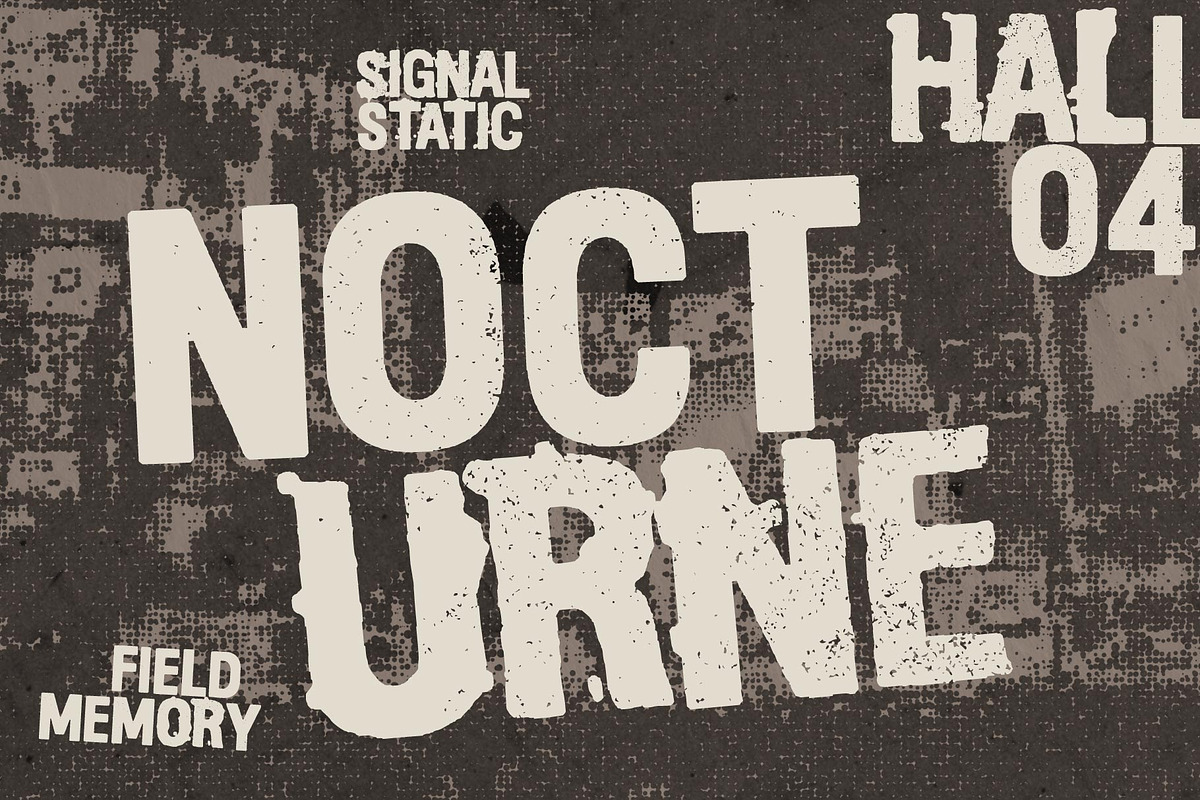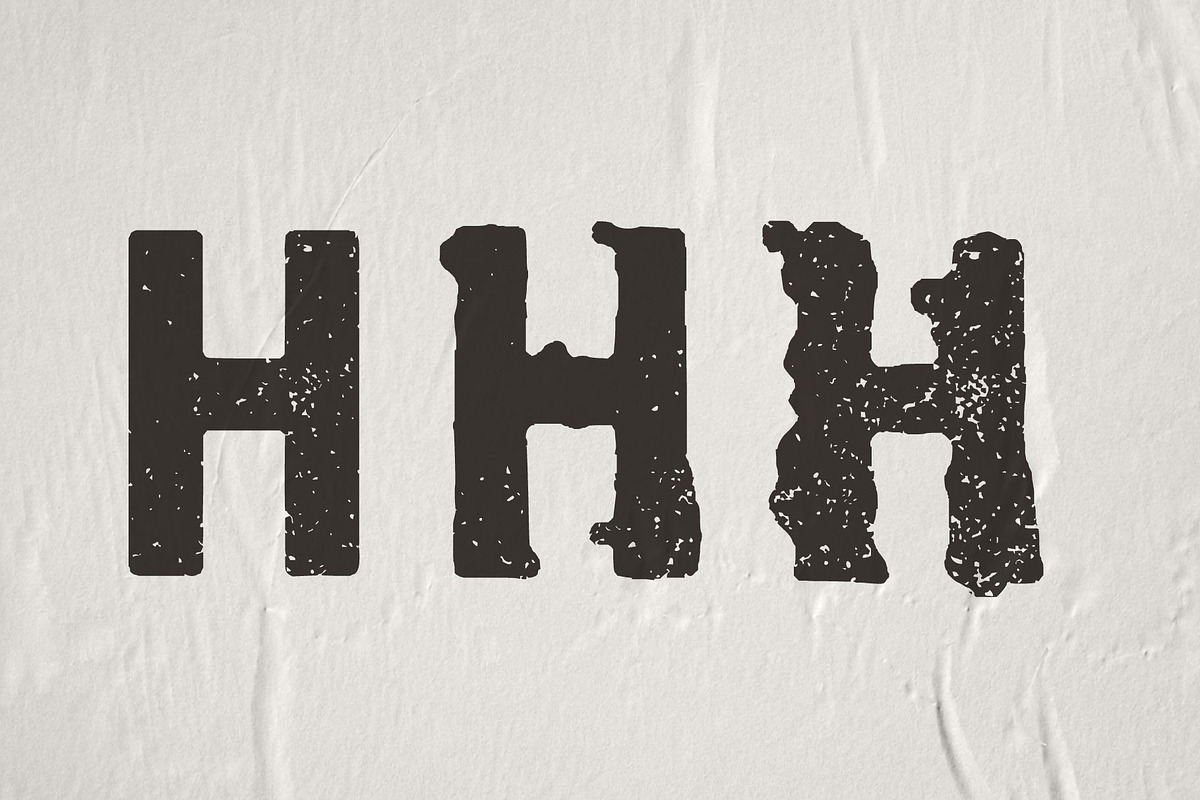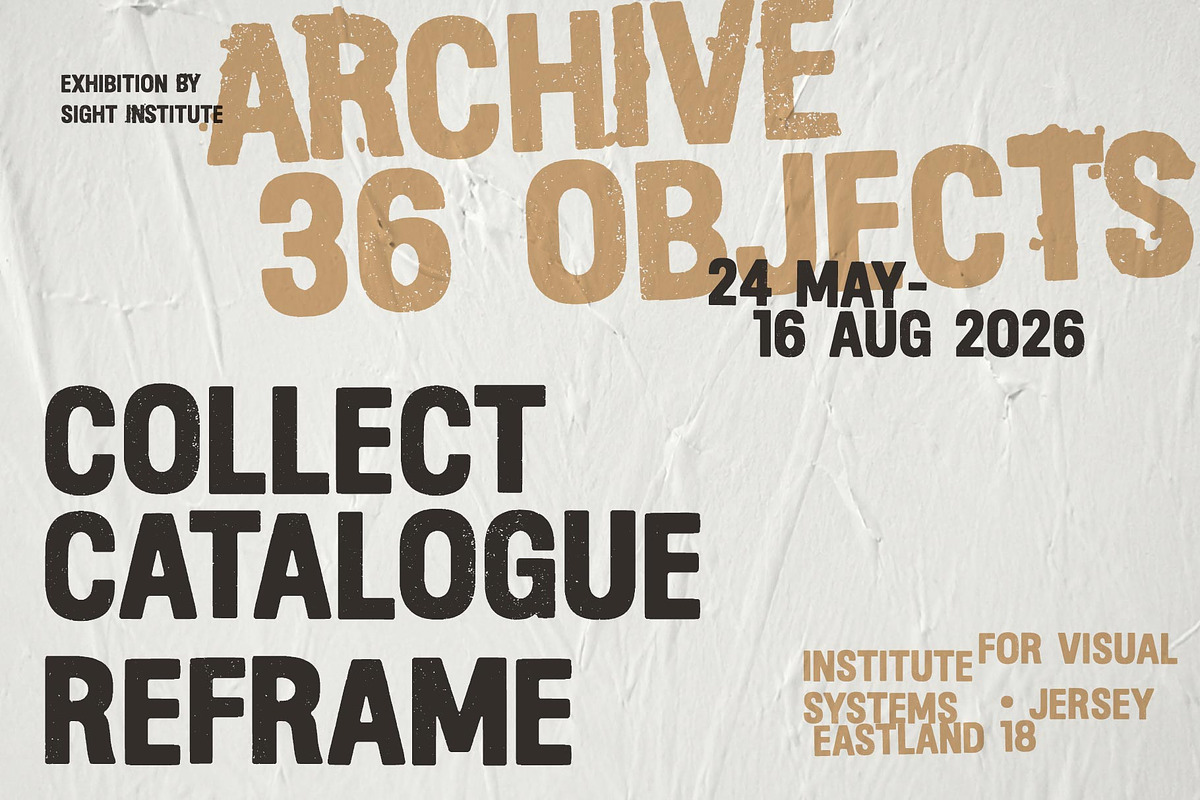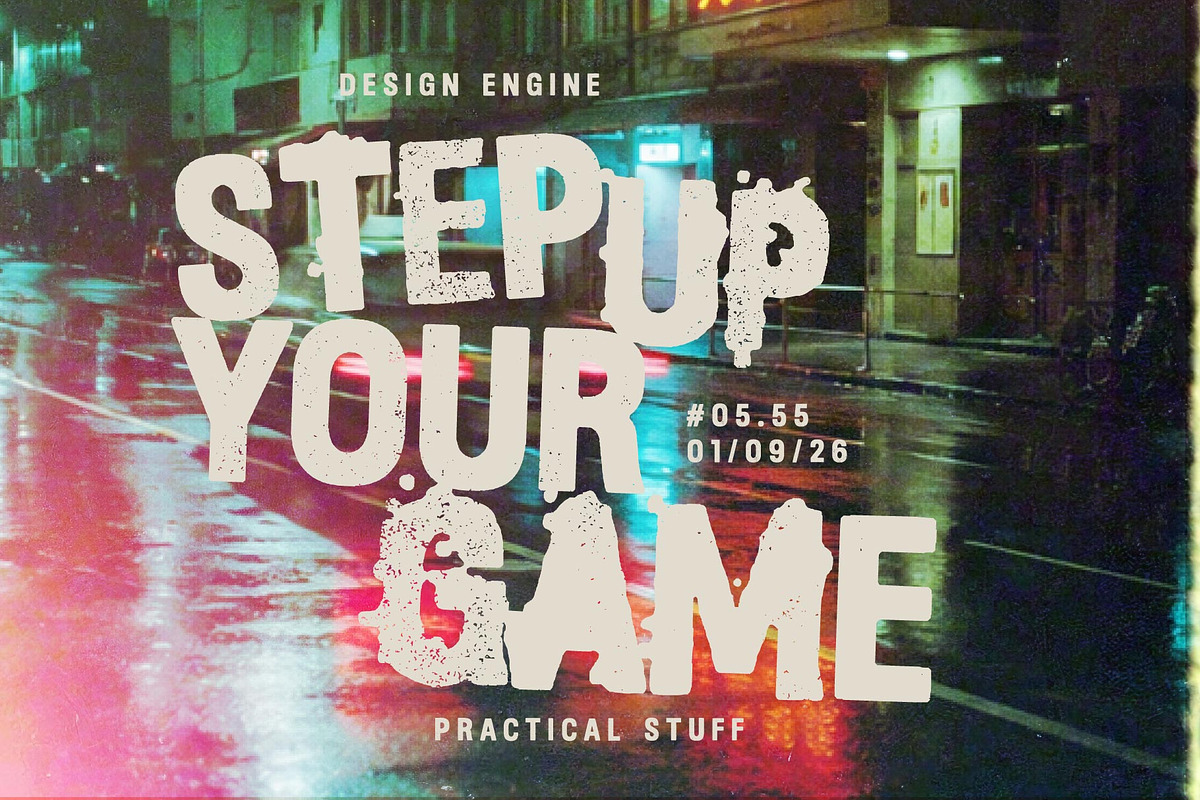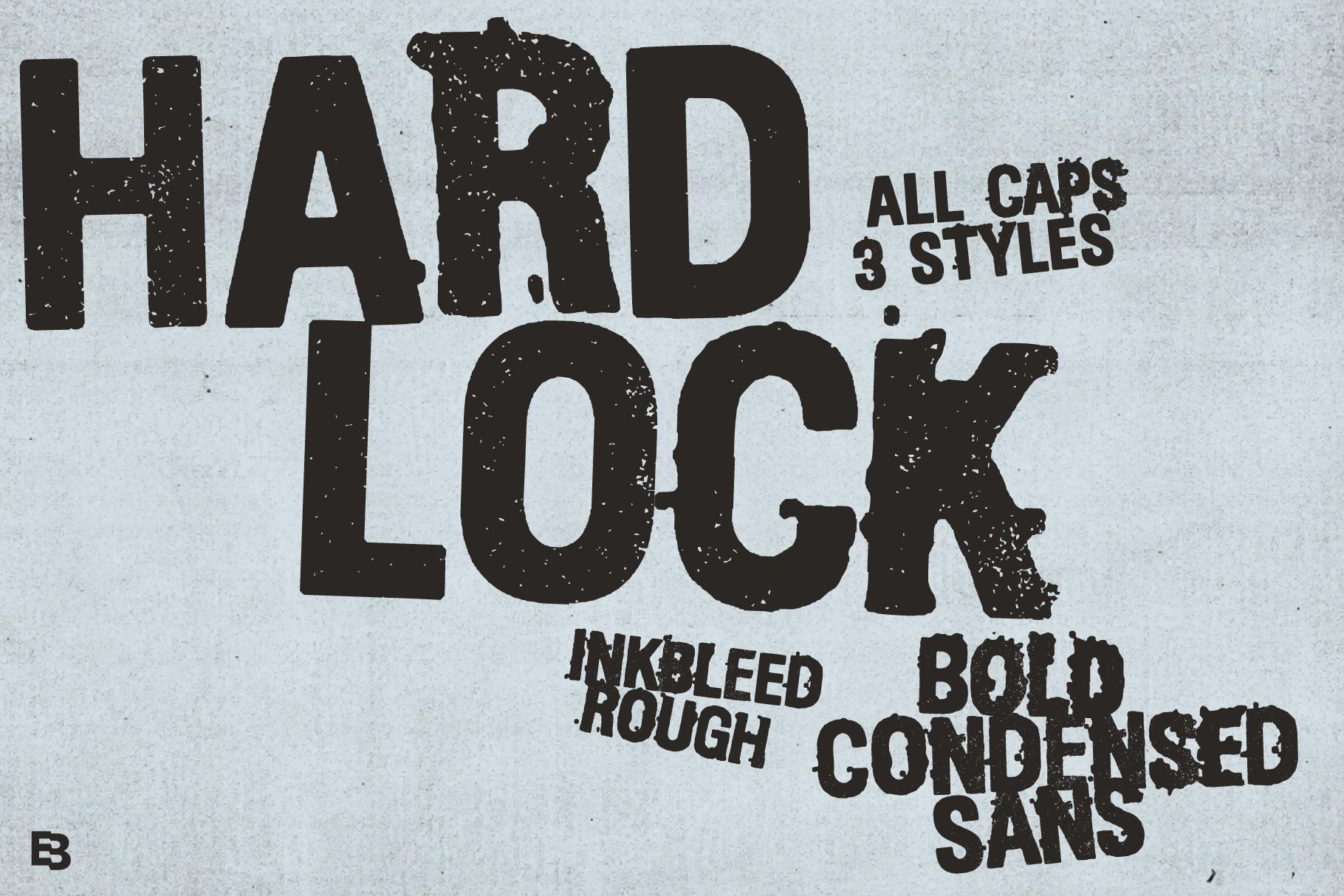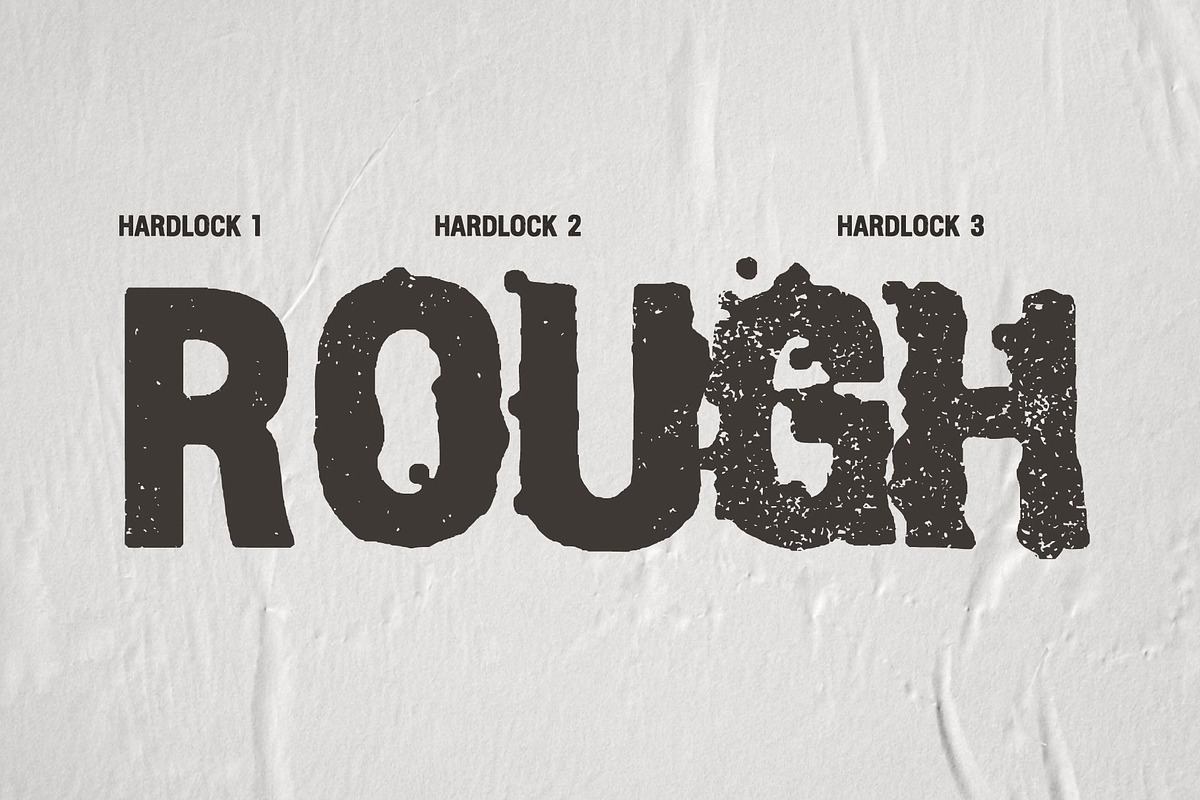
Hardlock: Rough Condensed Fonts
Hardlock is a bold all-caps display font with a raw, distressed character inspired by imperfect print and worn lettering. Available in 3 styles—it offers different levels of texture and irregularity while maintaining a strong, condensed presence. Designed for posters, headlines, branding, packaging, editorial layouts, and other display applications, Hardlock brings a tactile and expressive quality to typography, making it a distinctive choice for projects that call for bold forms with an authentic printed feel.